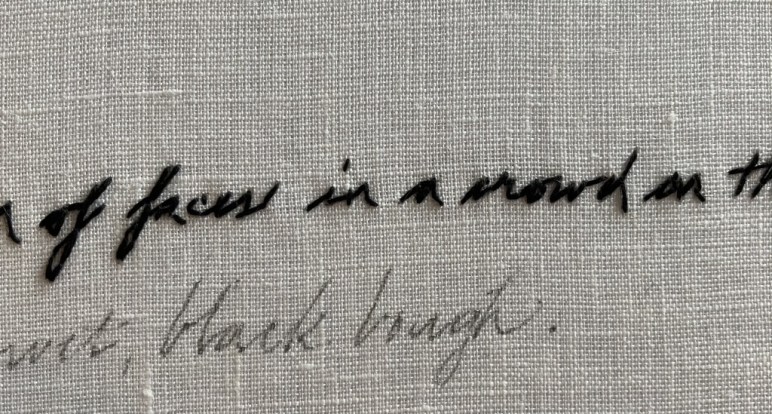
Mastering the backstitch as mode of expression in text….
“perspective”
Letters letters….. Time to get back to work in the studio….
This work is a study done with an automatic pen #1, gouache, on BFK paper.
I’m thinking of turning this work into a print, and also working it into an embossed version with my etching press.
I came across this photo taken on December 31, 2015. We had spent that day at the Forks enjoying the company of tourists and locals, and taking in the ambience of the artisan shops and buskers performing at various points in this historic area. The day was unseasonably warm, and I got the opportunity to have a photo taken beside the statue of Mahatma Ghandi outside the Canadian Museum of Human Rights. It was a poignant way to end the year and begin a new one.
We finally had some snow falling here yesterday… So very exciting to see the snow fall and settle on the branches in the forest!
I love the effect too of bare branches in the colder seasons — like spontaneous bursts of calligraphy writing itself at infinite angles in the atmosphere…constant state of communication!
“floating”
We are having a long run of cold arctic temperatures which can make for some fascinating skies. I took this photo while en route yesterday…
“eye in the sky”
You don’t often see one of these looking down at you at two in the afternoon!